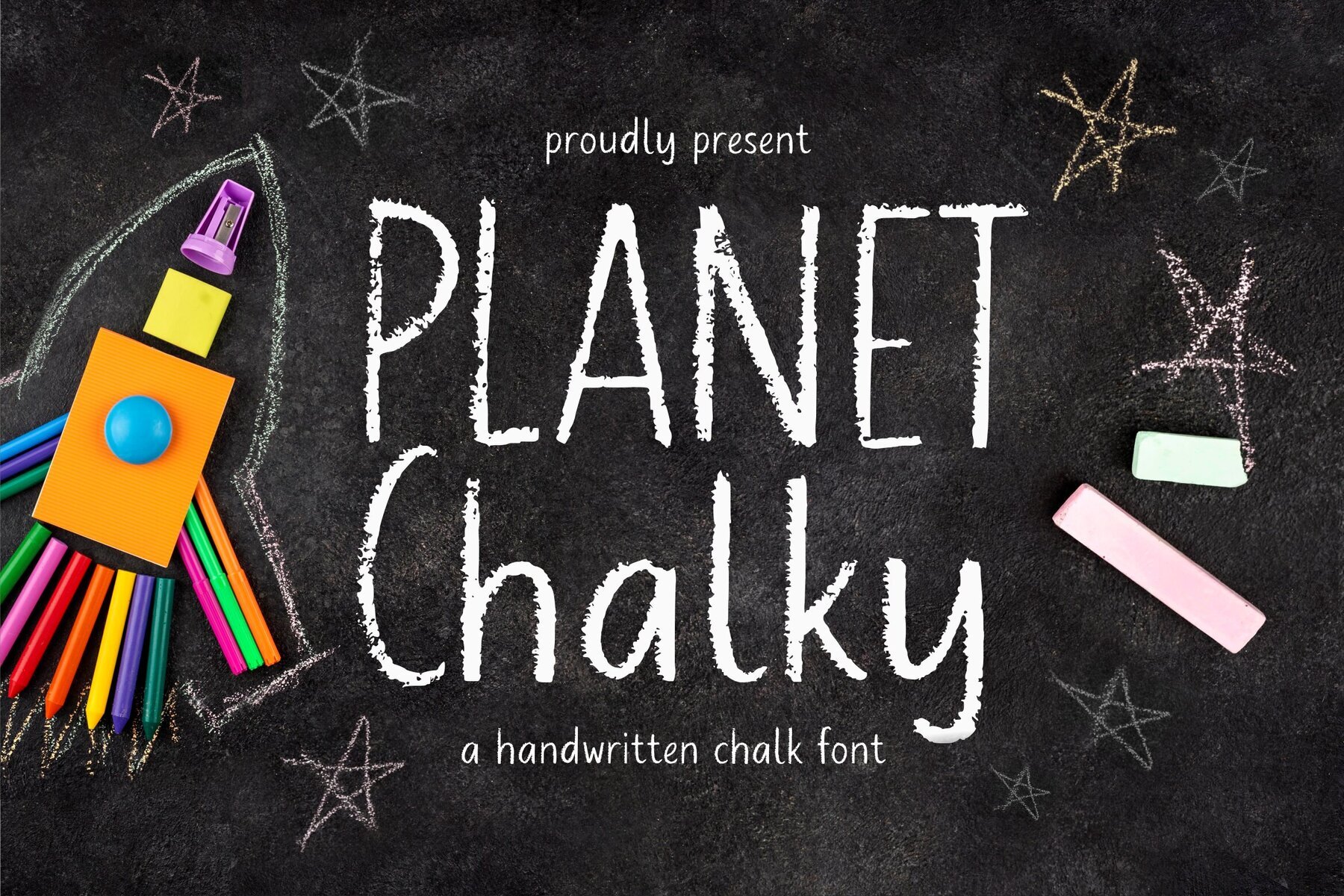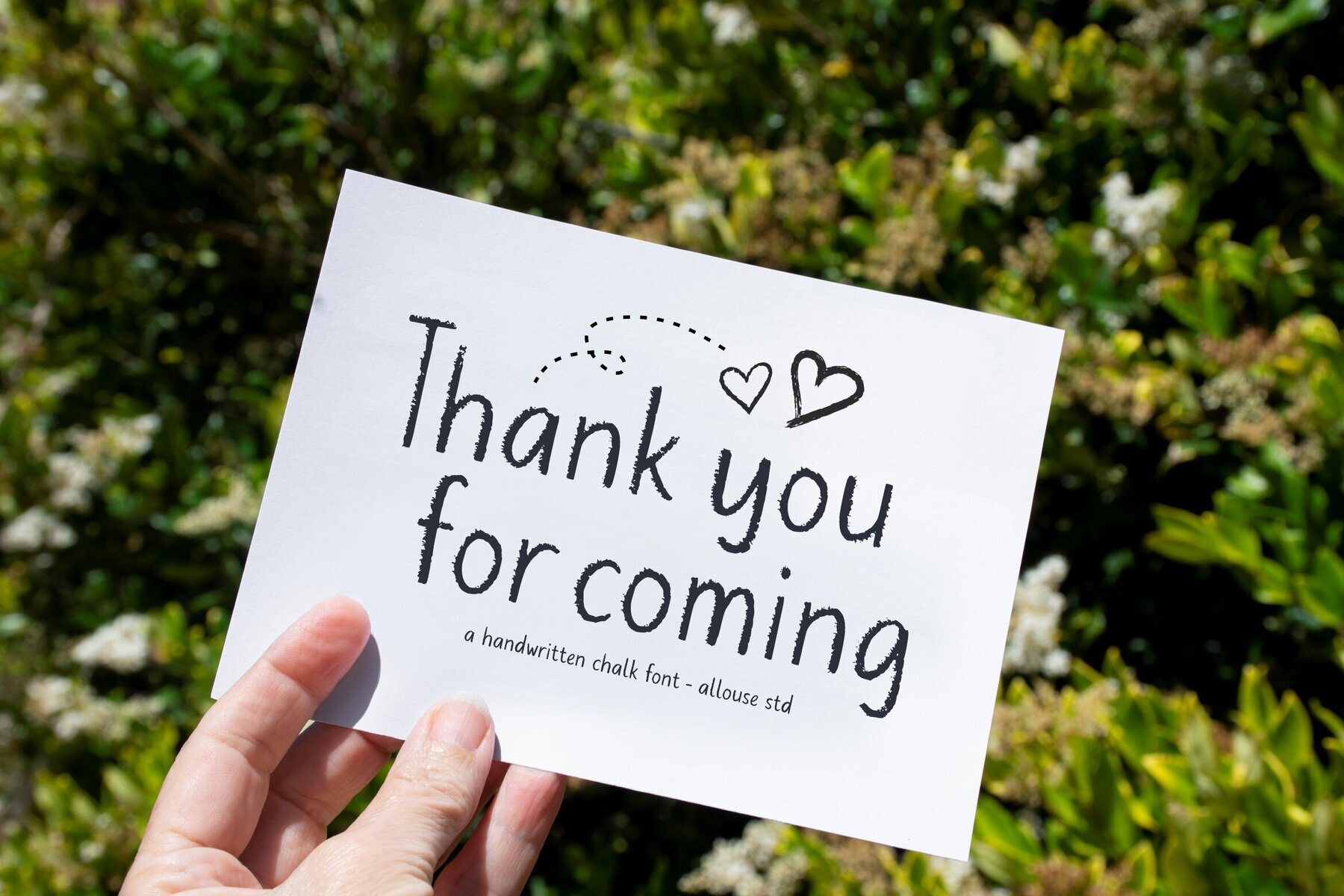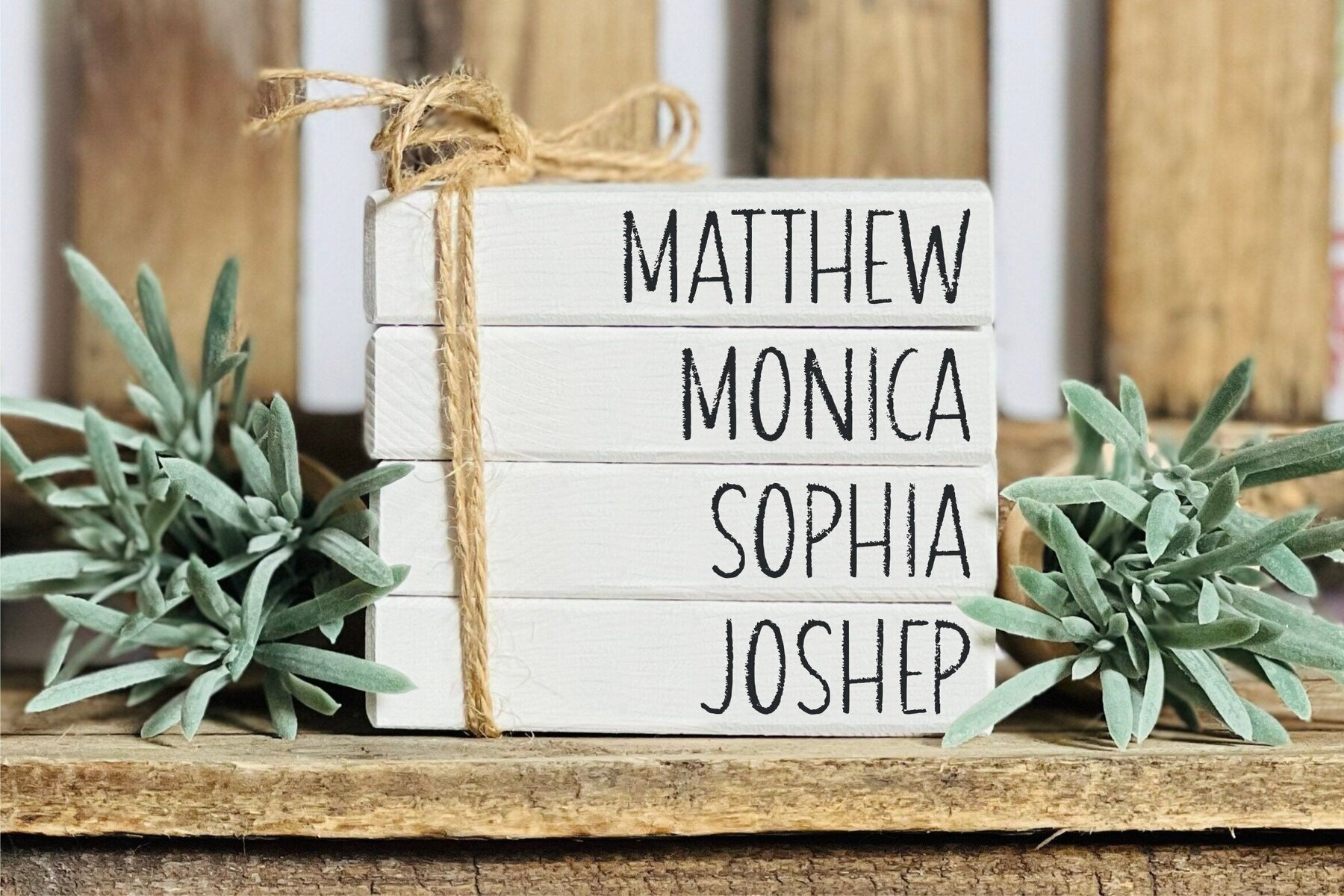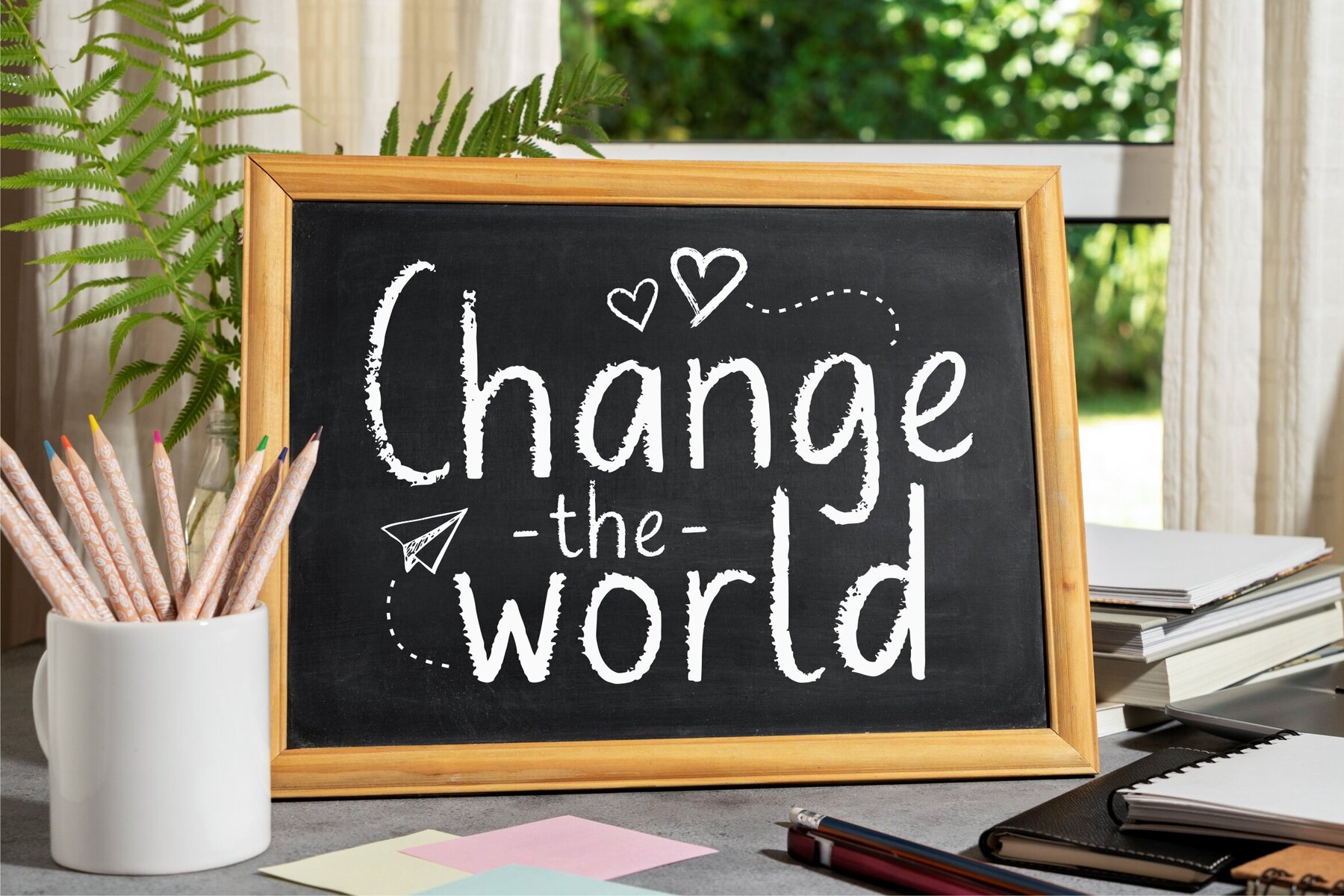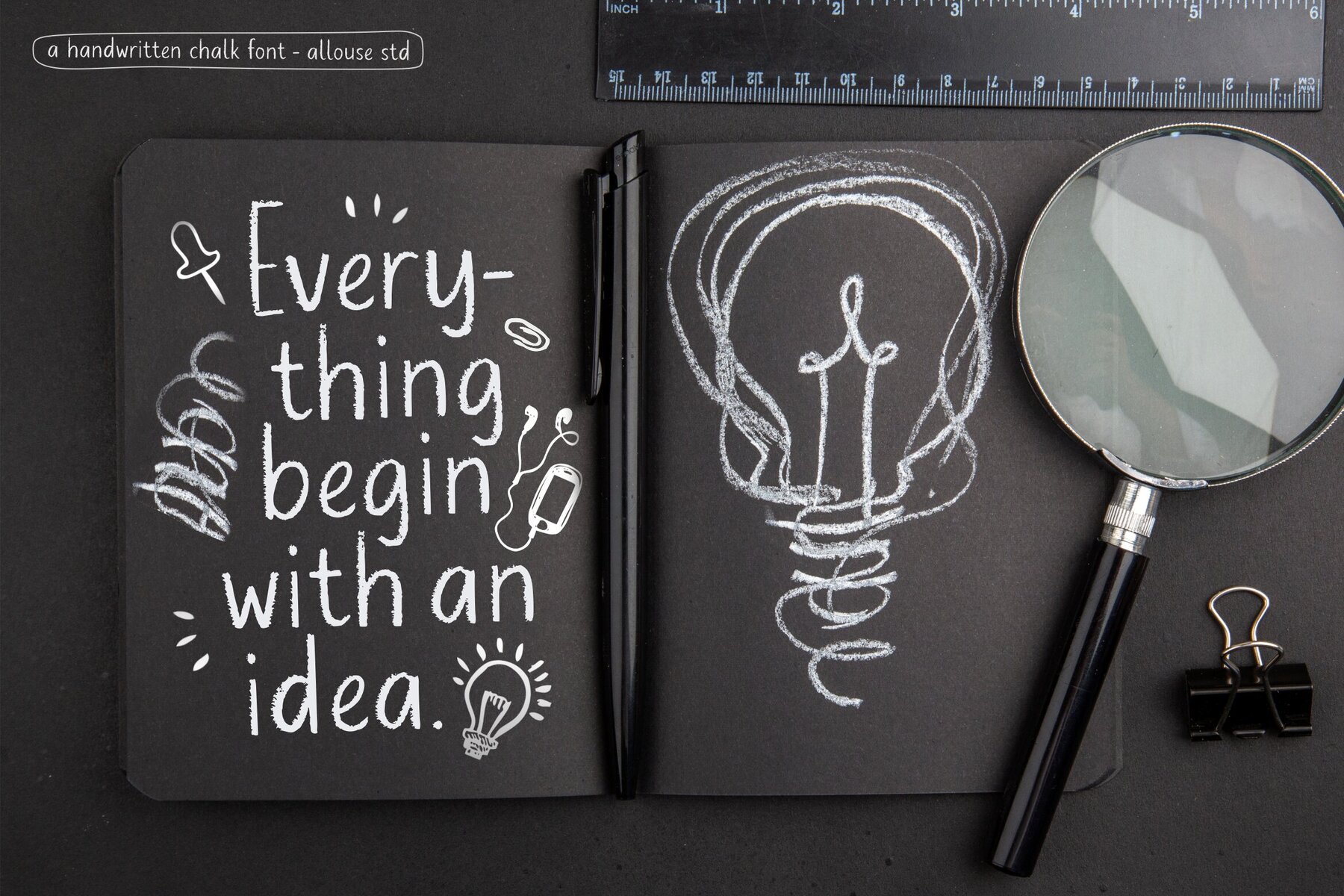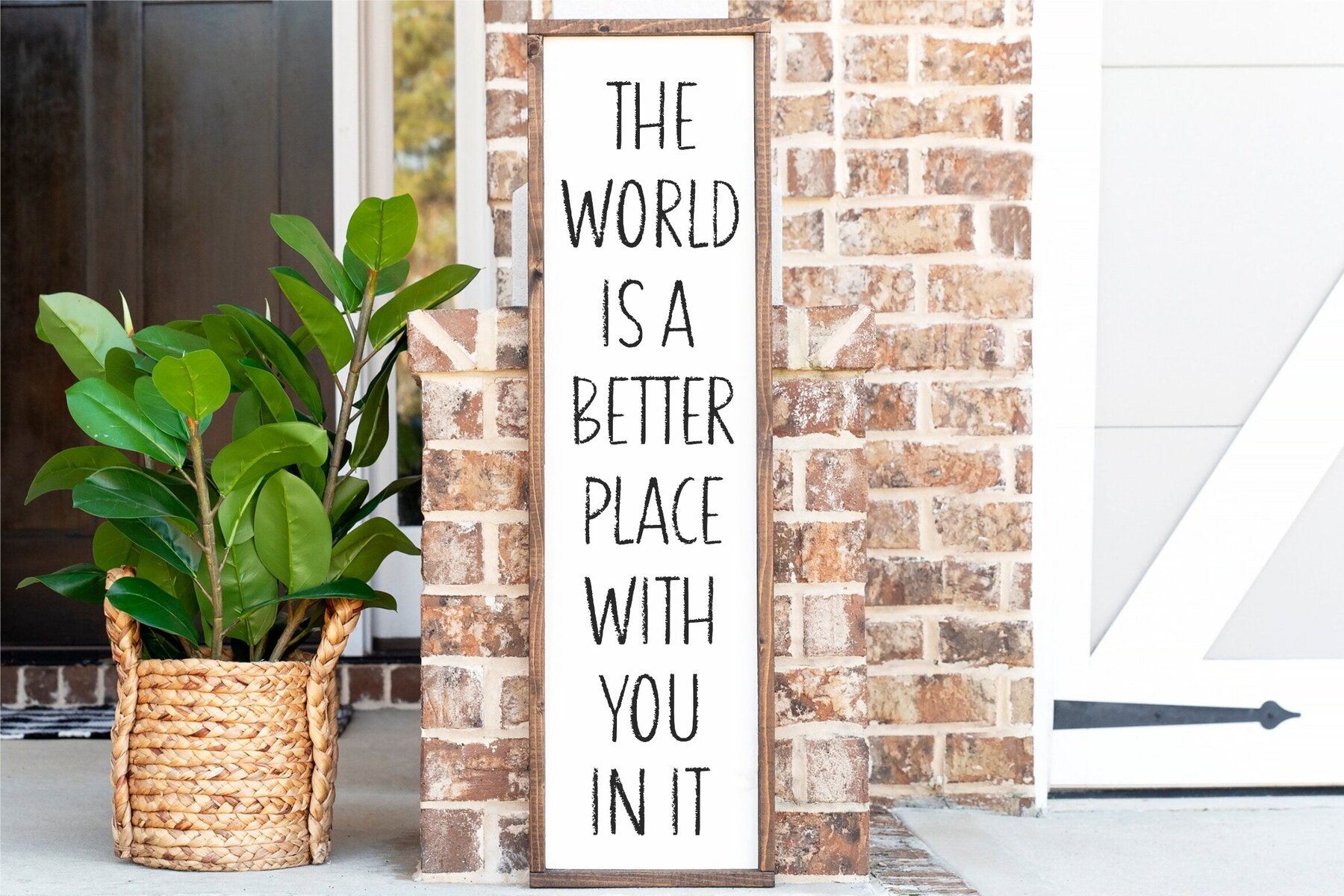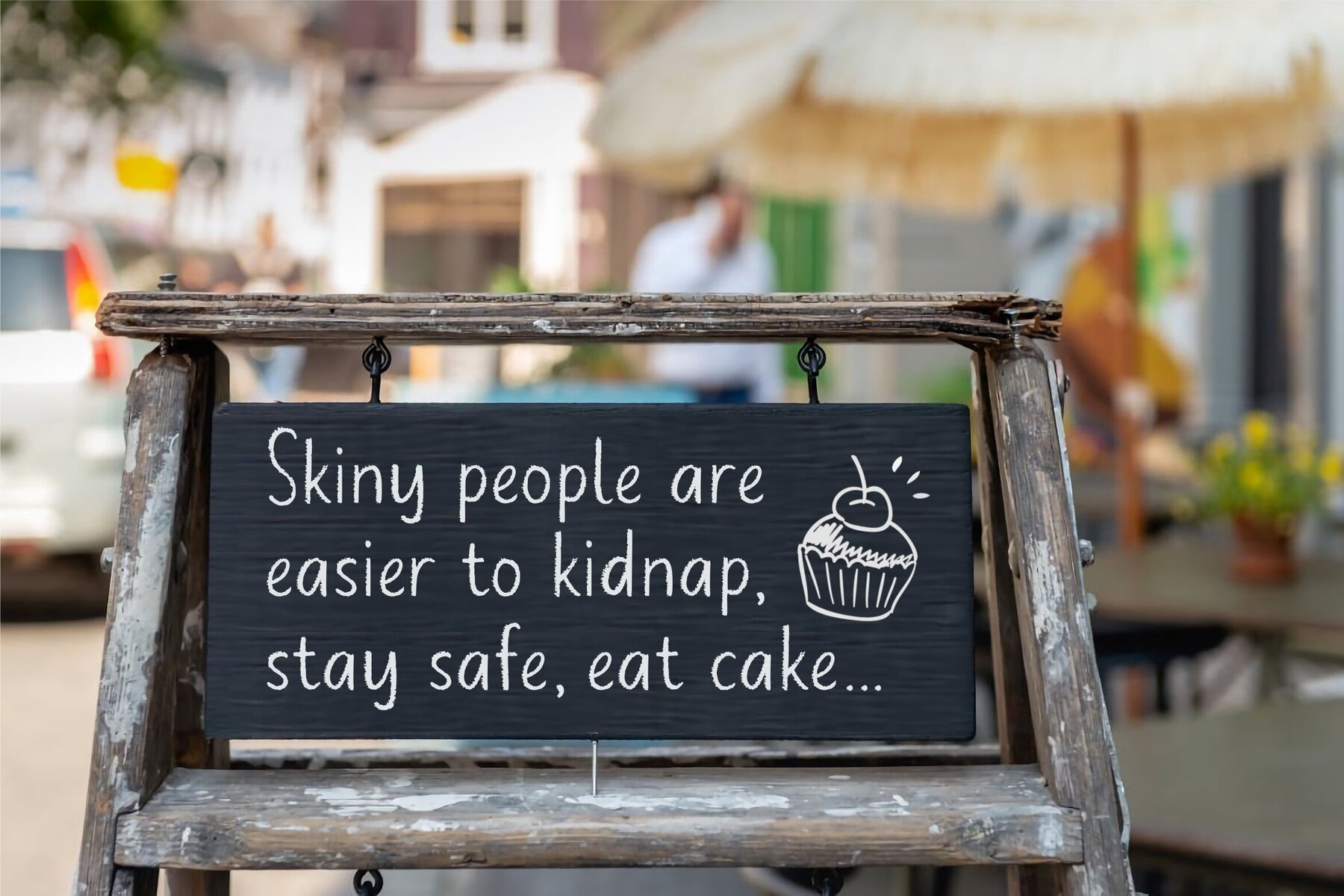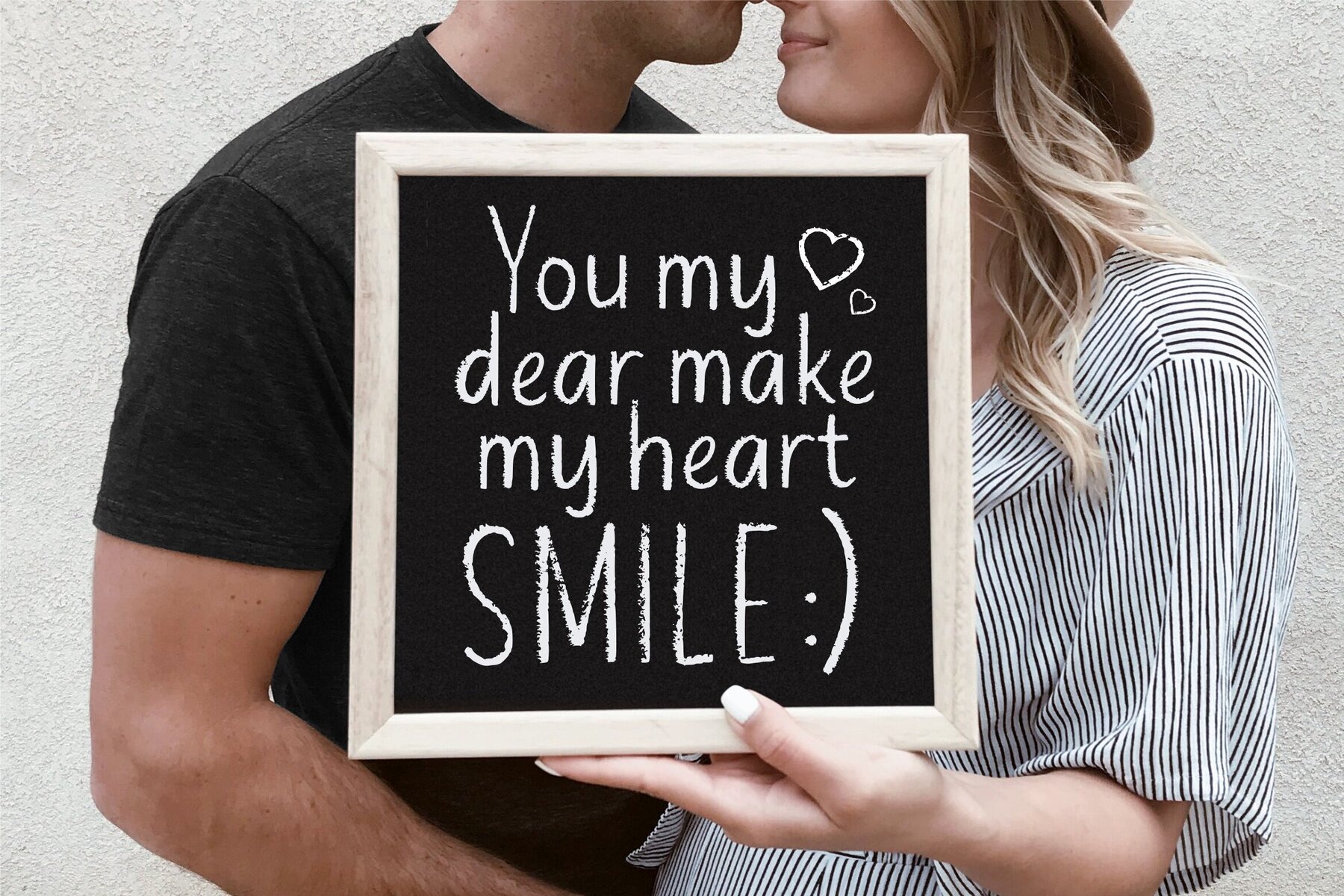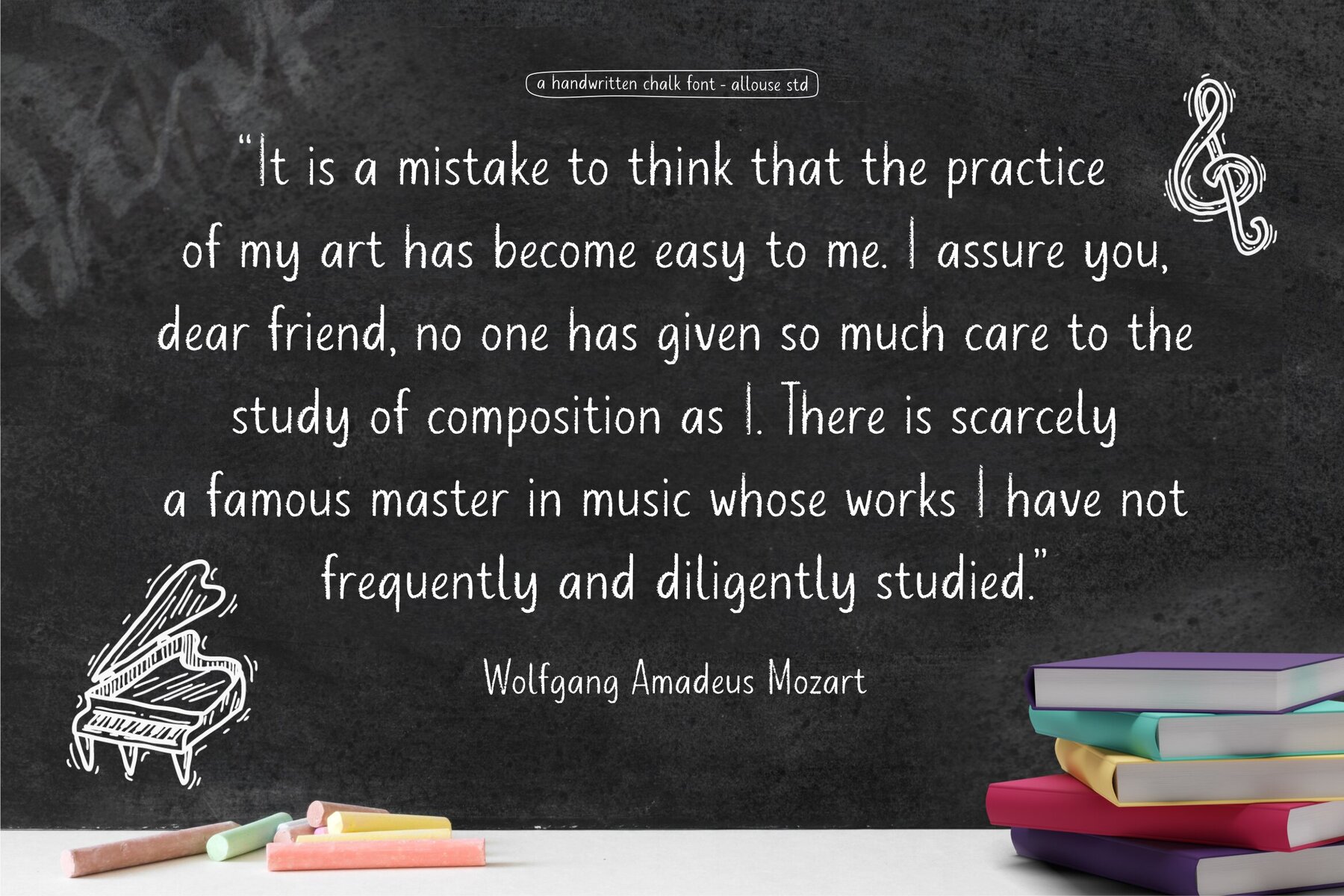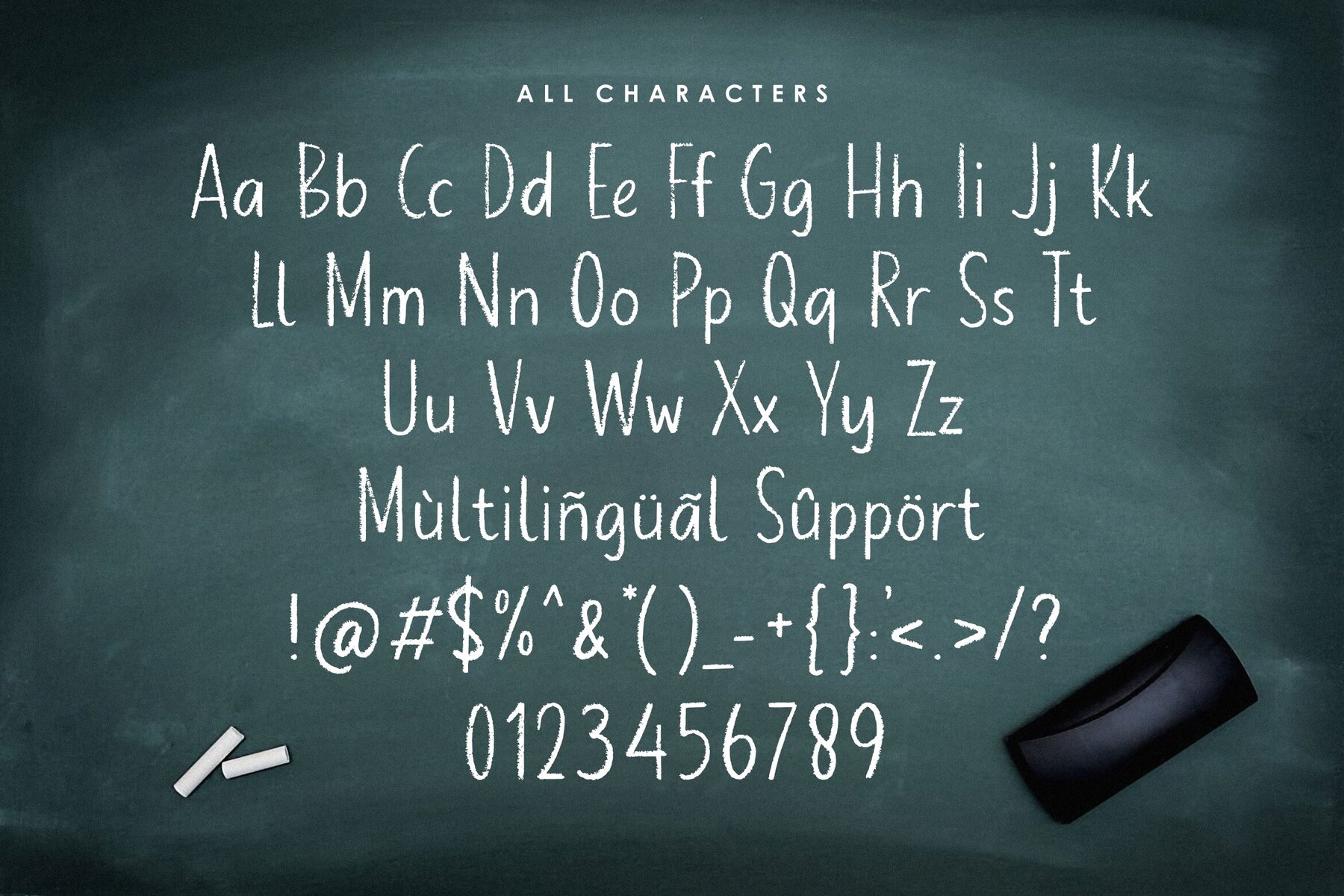
Planet Chalky Font
Planet Chalky Regular
Planet Chalky by Allouse Studio presents a delightful choice for those seeking a playful and stylish typeface. This font breathes life into your projects, whether you're working on product packaging, branding initiatives, magazine layouts, or crafting memorable wedding invitations. Seamlessly adaptable, Planet Chalky adds a touch of charm to both digital and print platforms, making it an excellent choice for social media as well.Planet Chalky: Playful Type for Versatile Use